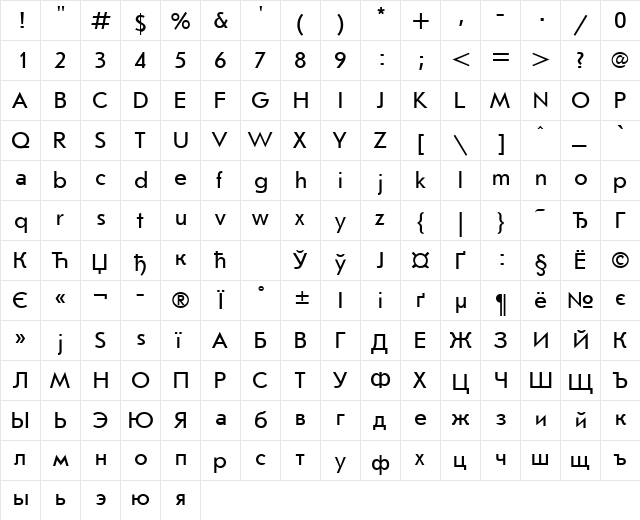
JournalSansCTT Regular Font Preview
JournalSansCTT Regular
Design Context for JournalSansCTT Typeface
JournalSansCTT is a composed and adaptable typeface that performs quietly and consistently across a wide range of design contexts.
Pro Tip: Use JournalSansCTT in both headline and body roles to test its range before committing to a single application.